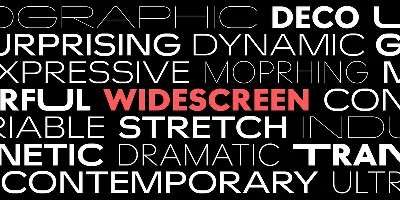
Widescreen Font
Widescreen Font is a bold, ultra-modern sans-serif typeface with a wide stance and cinematic appeal. Designed for maximum visual impact, this font is perfect for movie titles, tech branding, digital interfaces, advertising, and high-impact headers. Its extended letterforms and futuristic look make it ideal for any design that needs to stand out with confidence and clarity.
Widescreen brings a clean, spacious feel to your typography, making it a strong choice for projects that emphasize precision and innovation. Its wide structure enhances legibility while giving your text a commanding presence. Whether you're working on a sci-fi themed layout or a sleek UI design, this font gives your work a bold, forward-thinking edge.